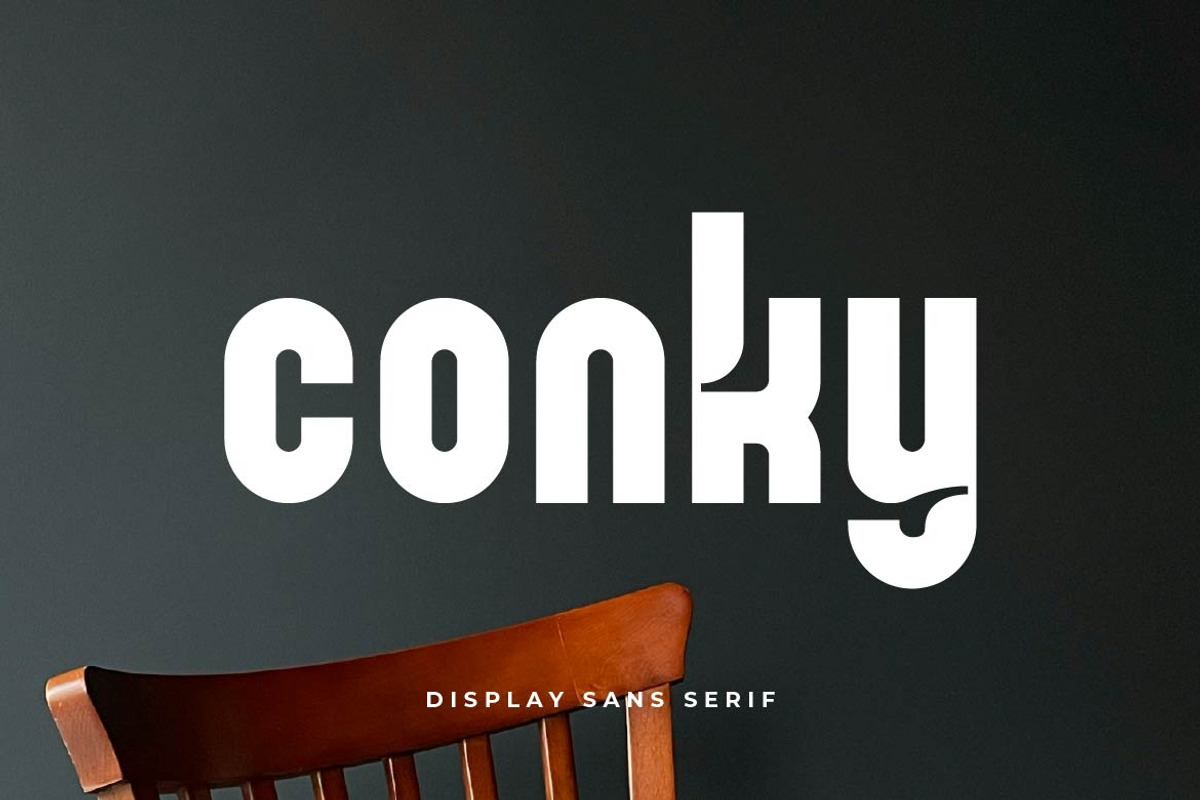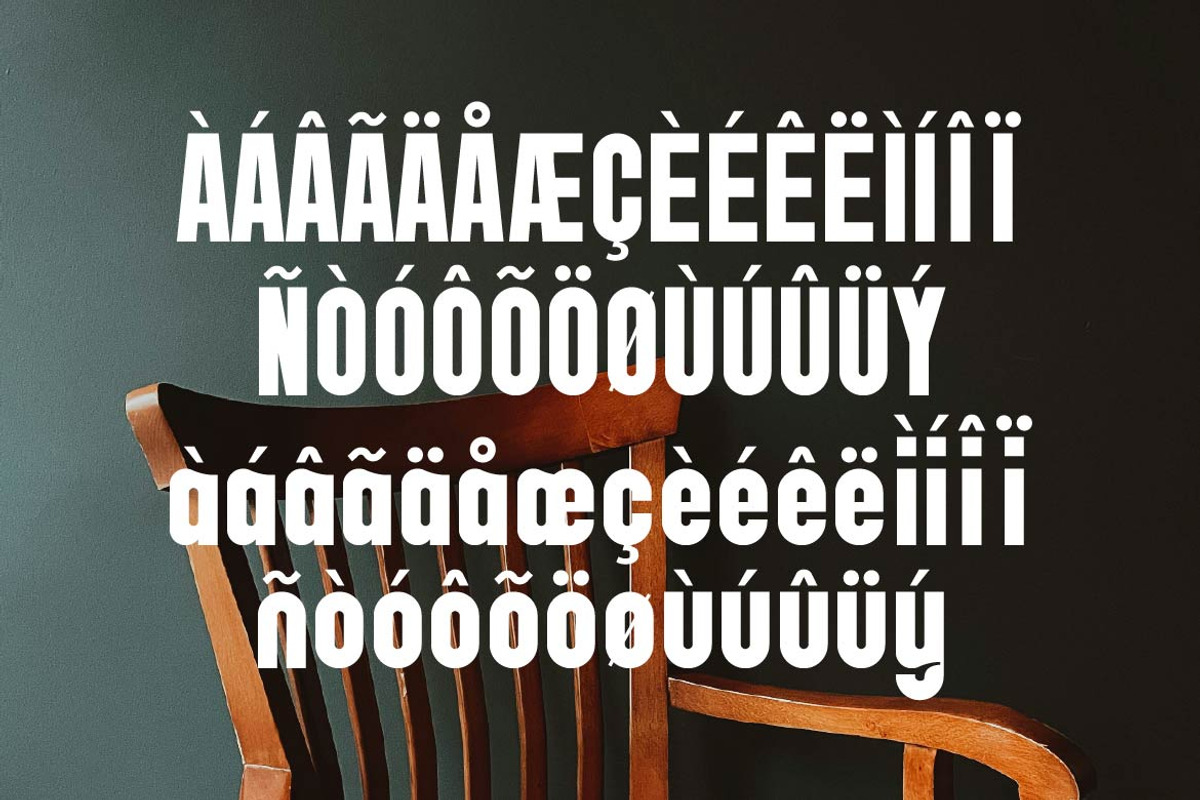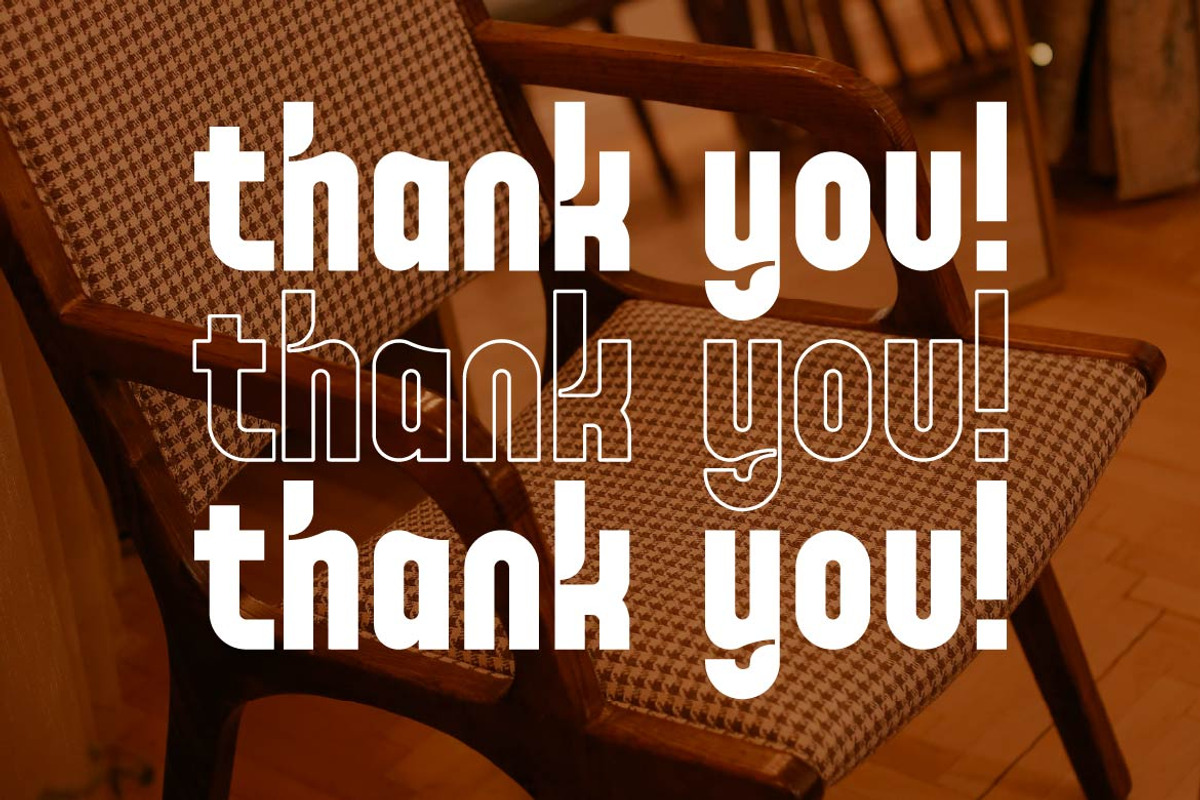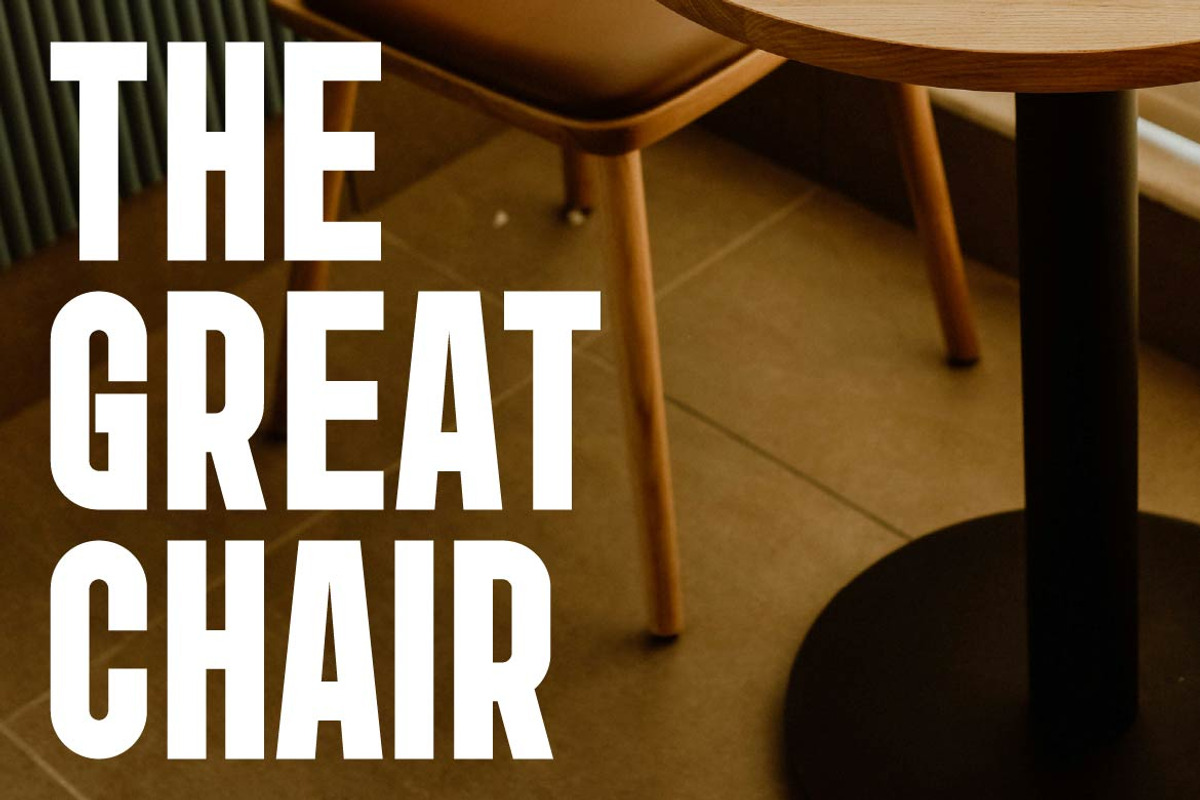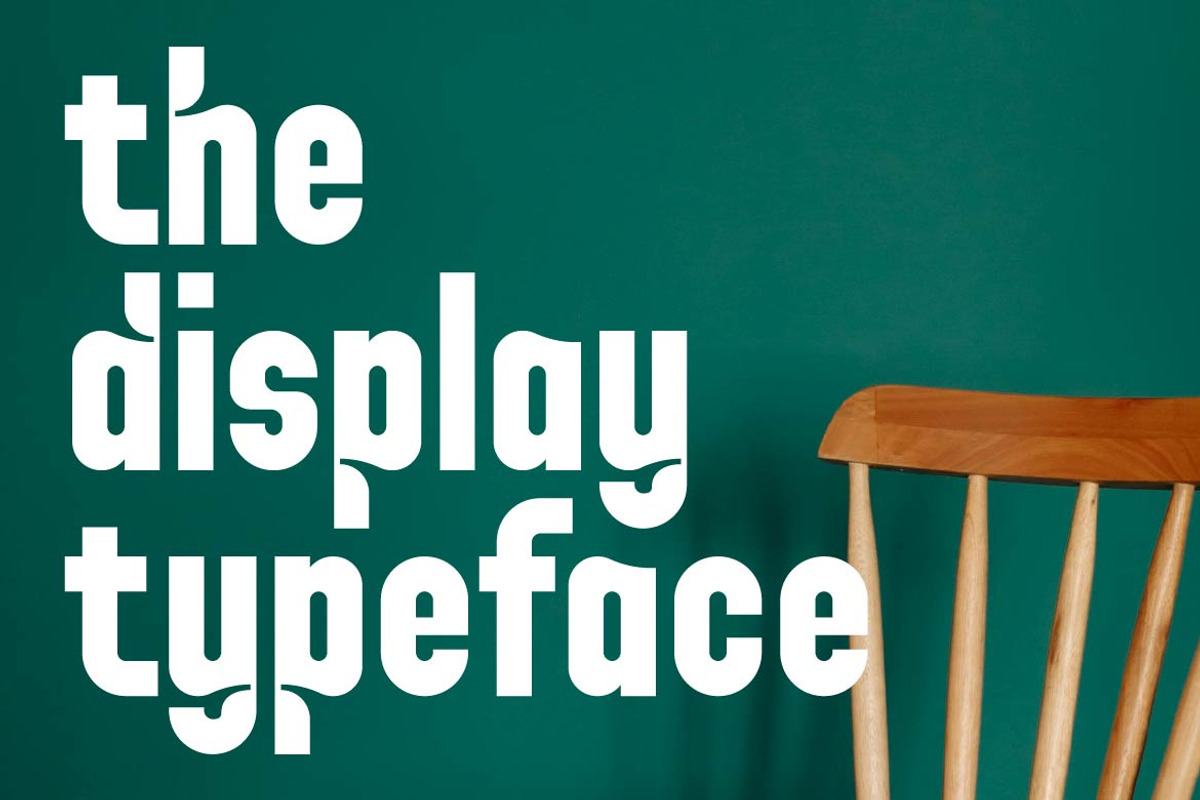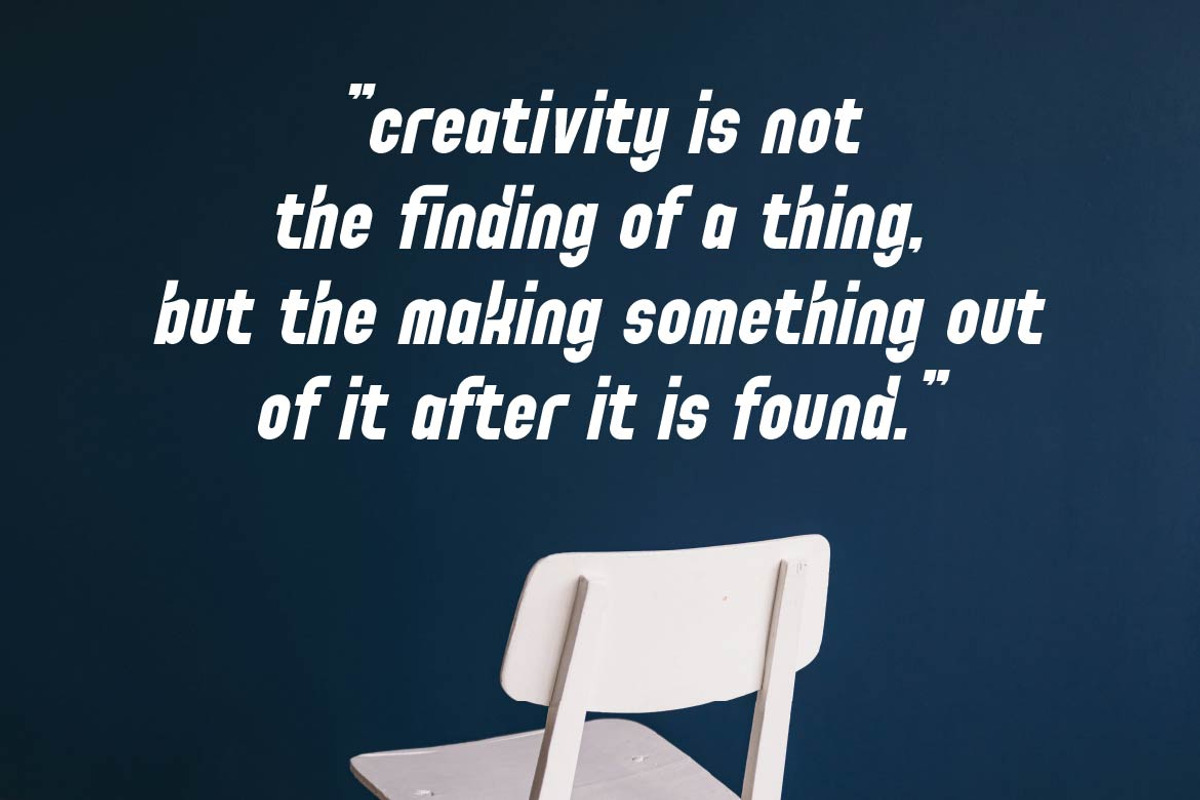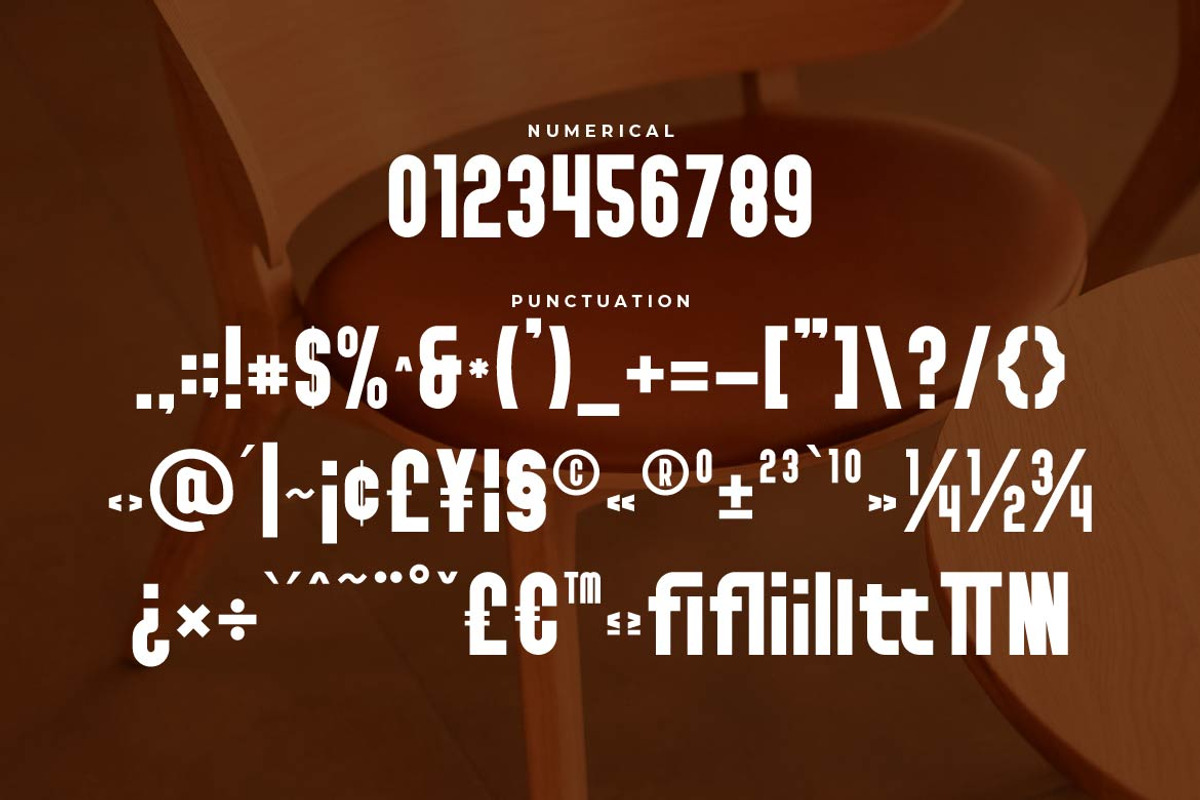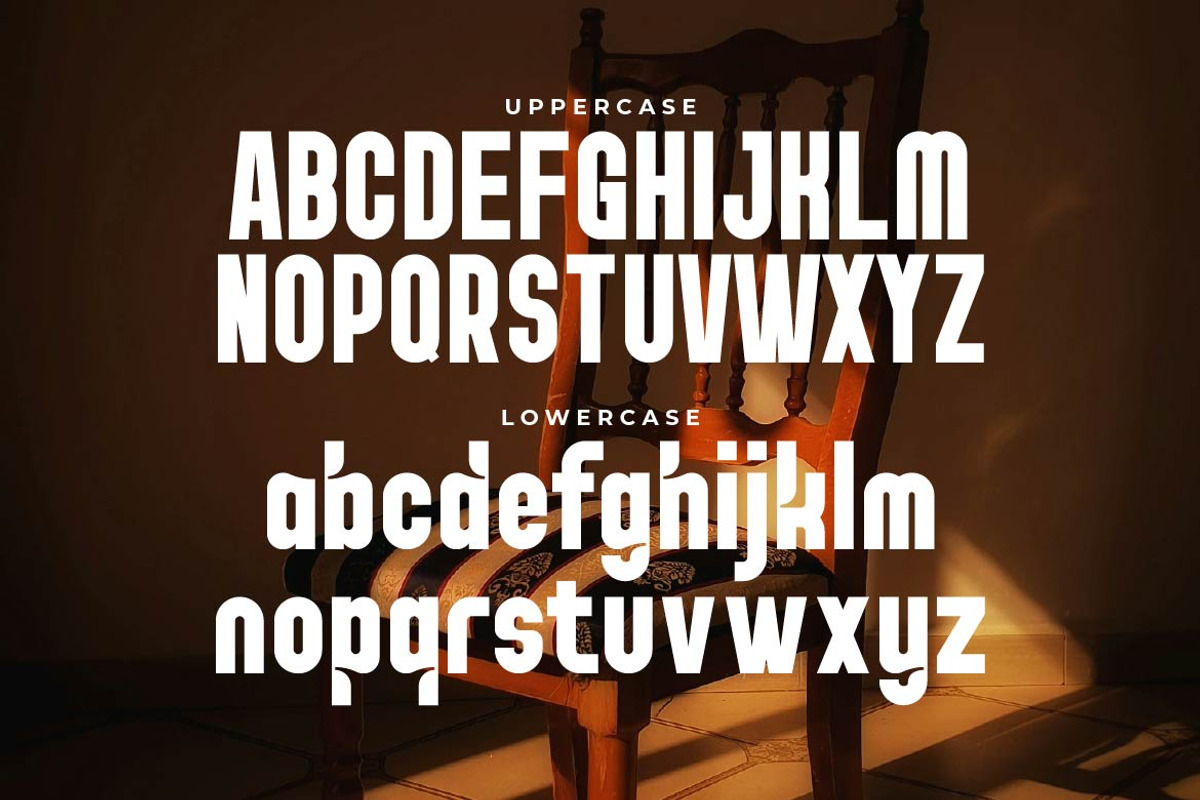
Conky – Friendly Sans Serif
Conky is a creative sans serif typeface that brings a fresh, friendly, and modern personality to your designs. With smooth curves, balanced proportions, and subtle playful details, Conky delivers a clean yet expressive look that stands out without losing readability.